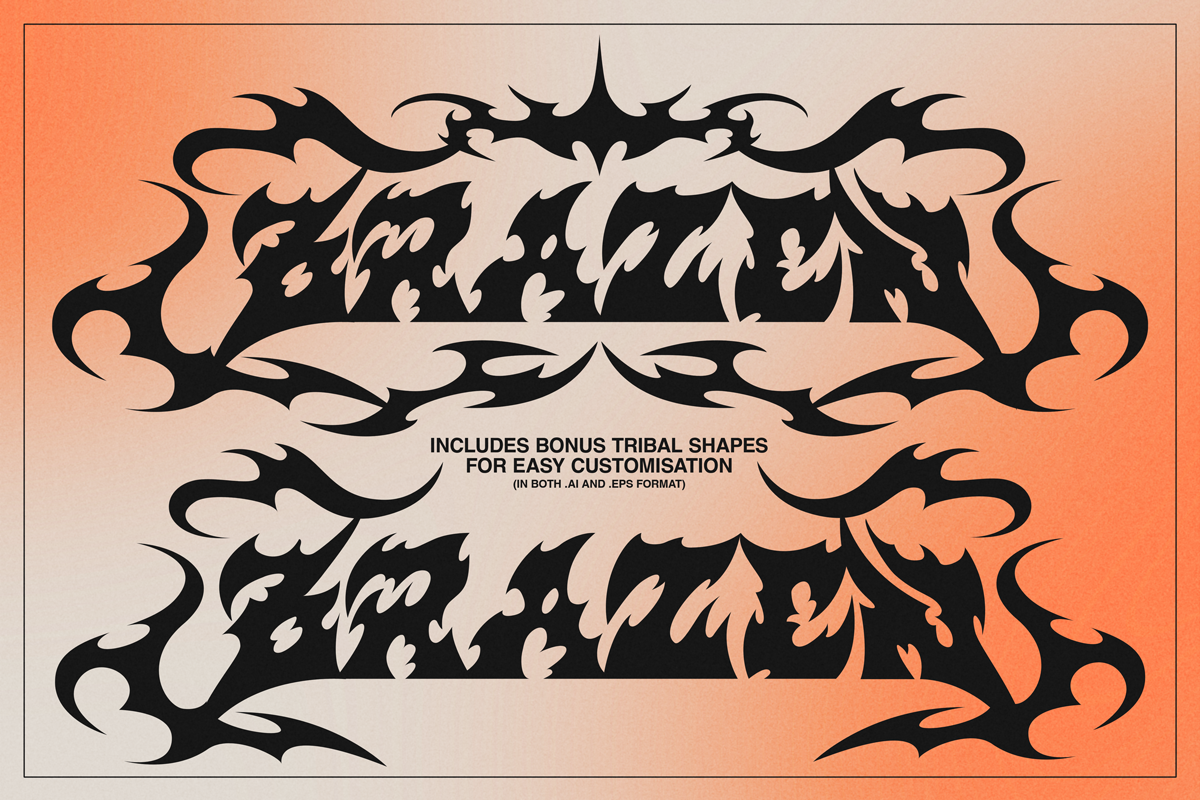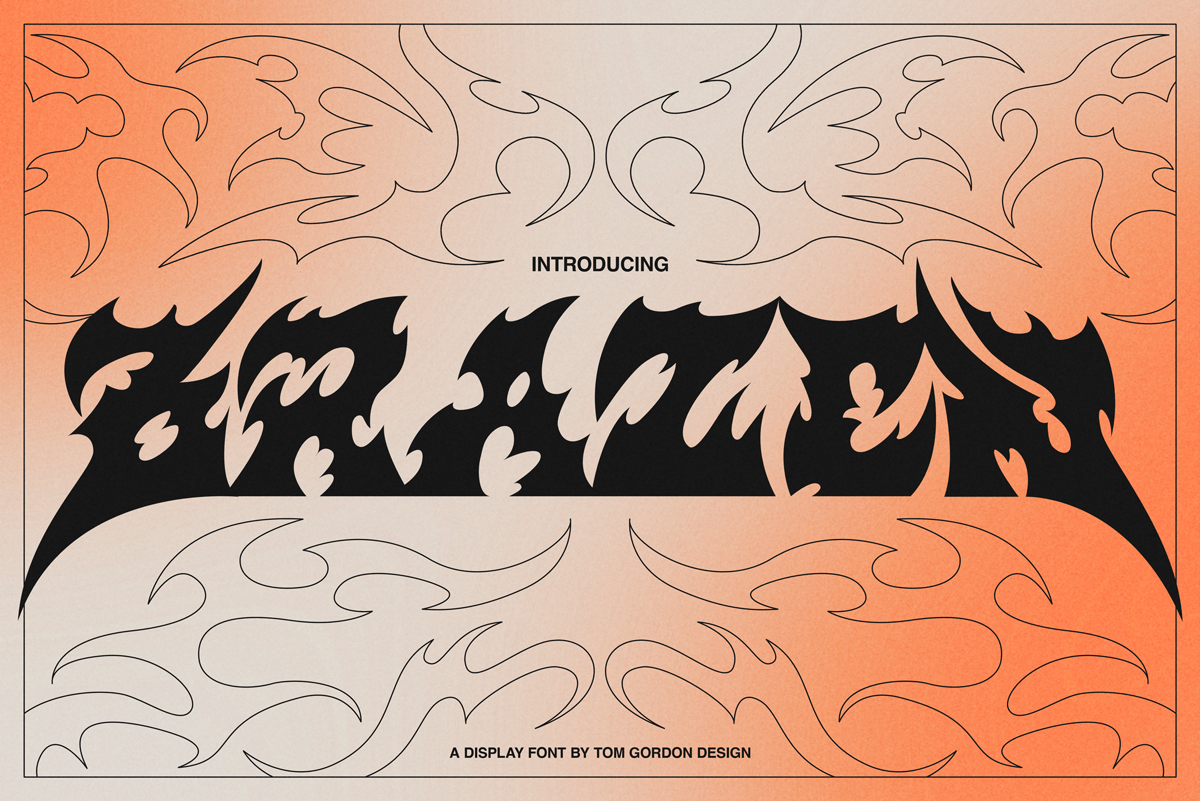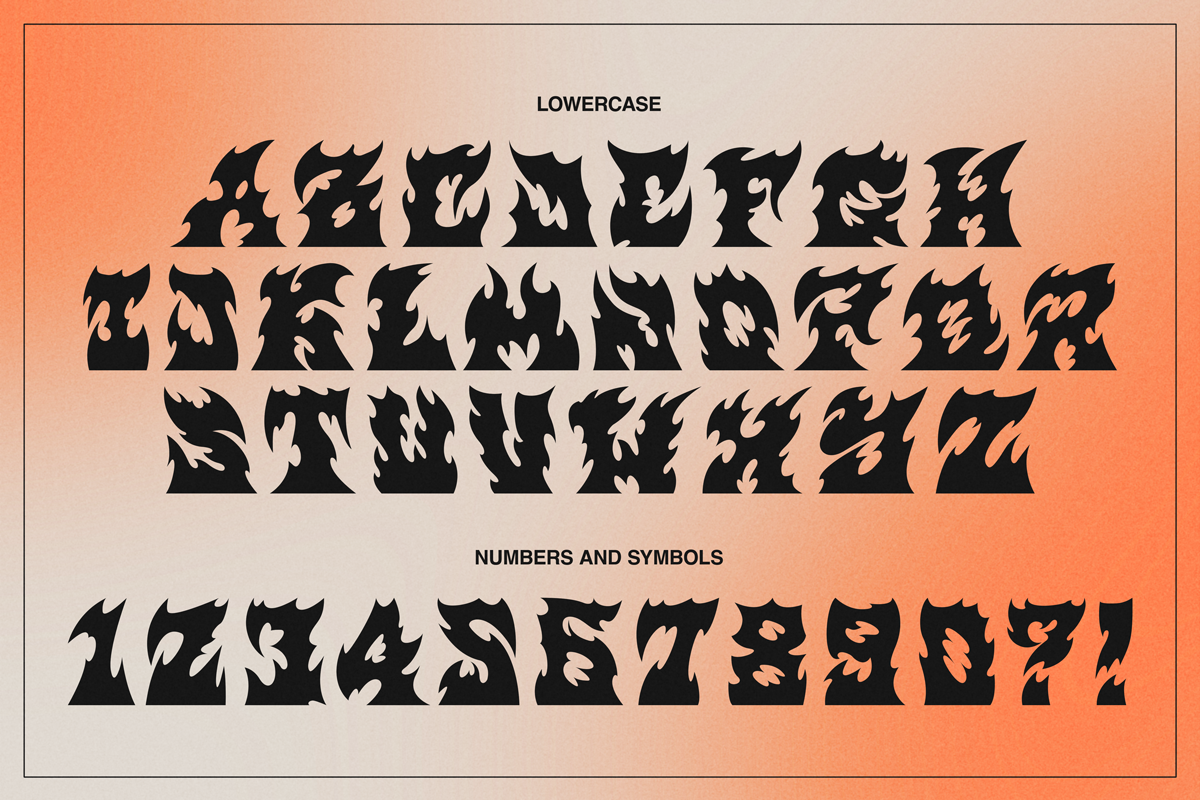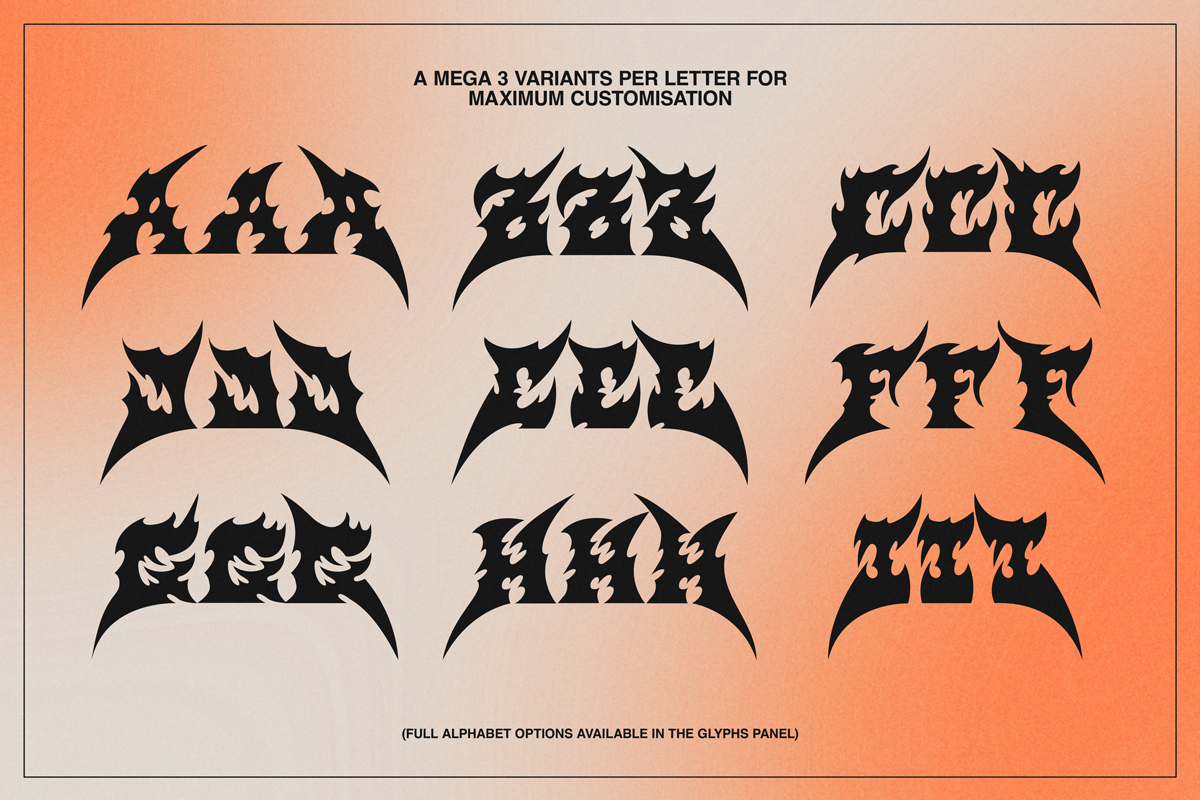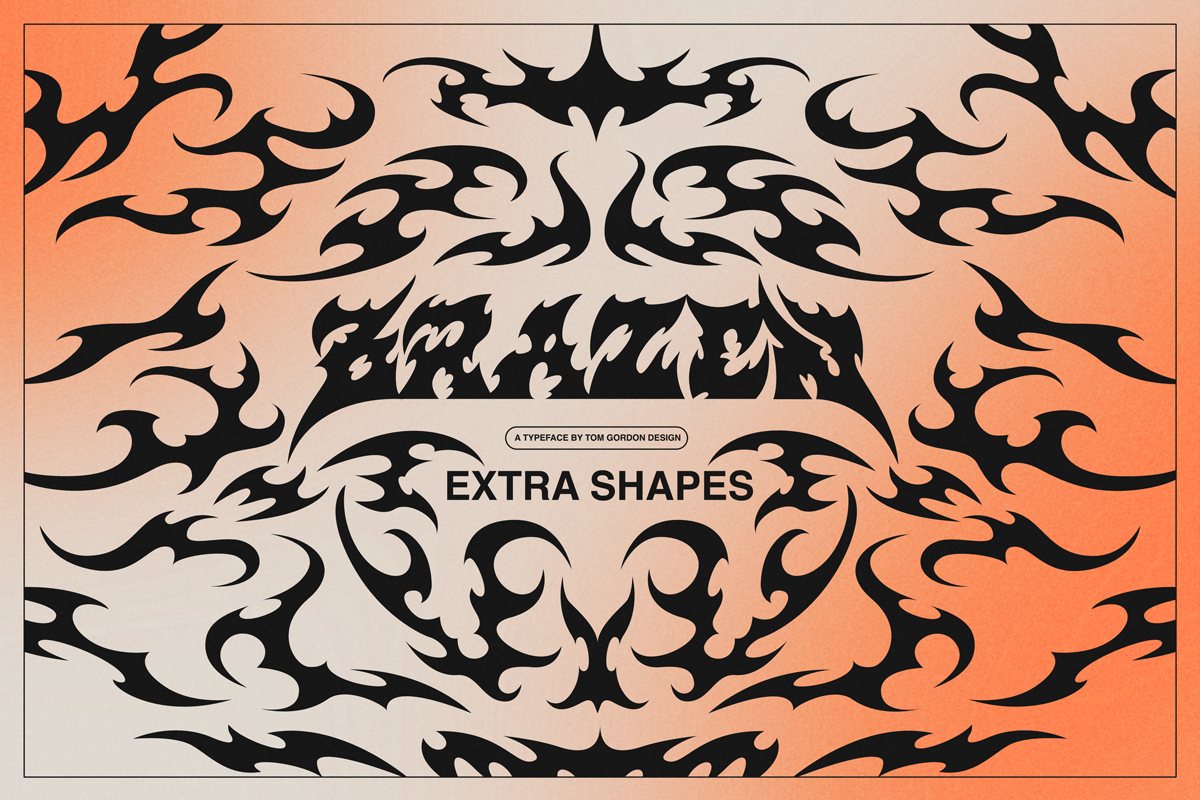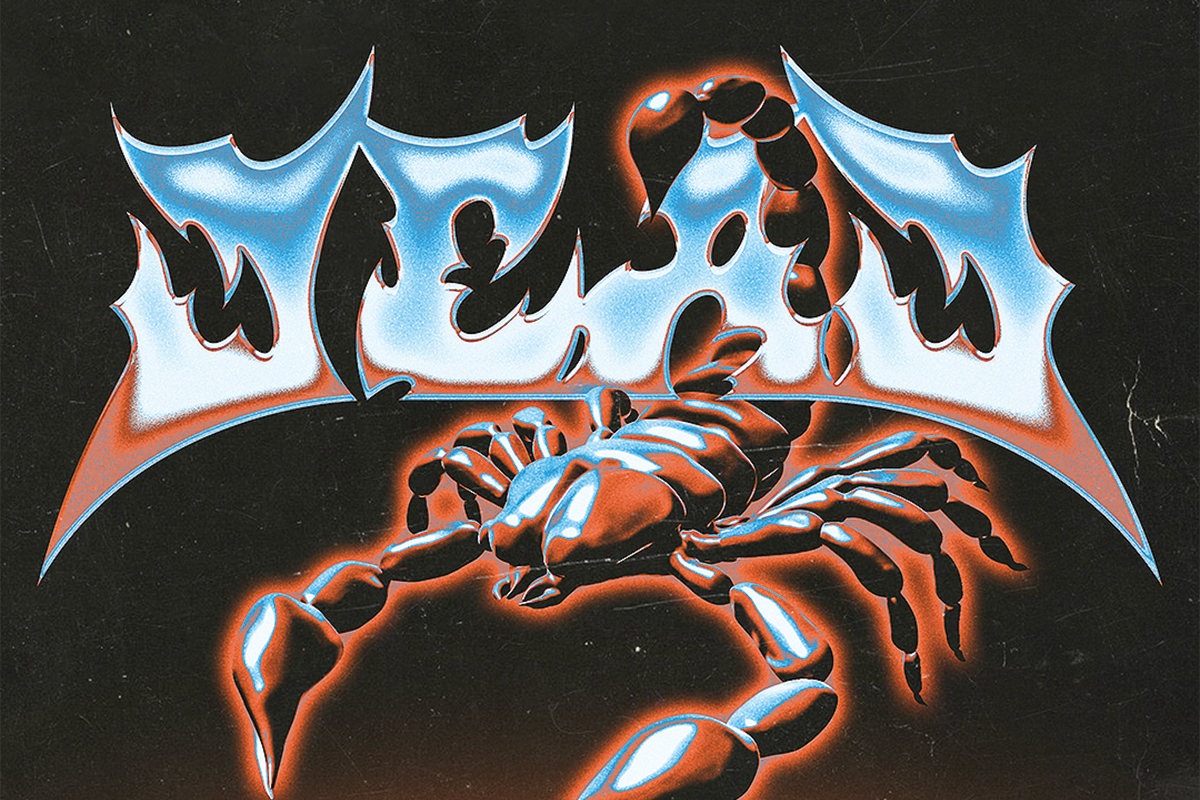
Brazen Font
Brazen is my take on a Neo-Tribal display font! This painstakingly thought out font is the perfect tool for a merchandise or logo designers arsenal. With 3 different variants for each letter to allow for symmetrical feeling typography you will save hours of fiddling to get that "metal logo" look. Over my 15+ year career designing for the biggest music artists in the world I couldn't count how many times I have needed to custom build letters for client projects to achieve this look... but now you won't have to. This truly is the font I wish had existed for all of this time!
Full alphabet including 3 variants per letter
Full set of numbers
Various symbols (Limited to the essentials)